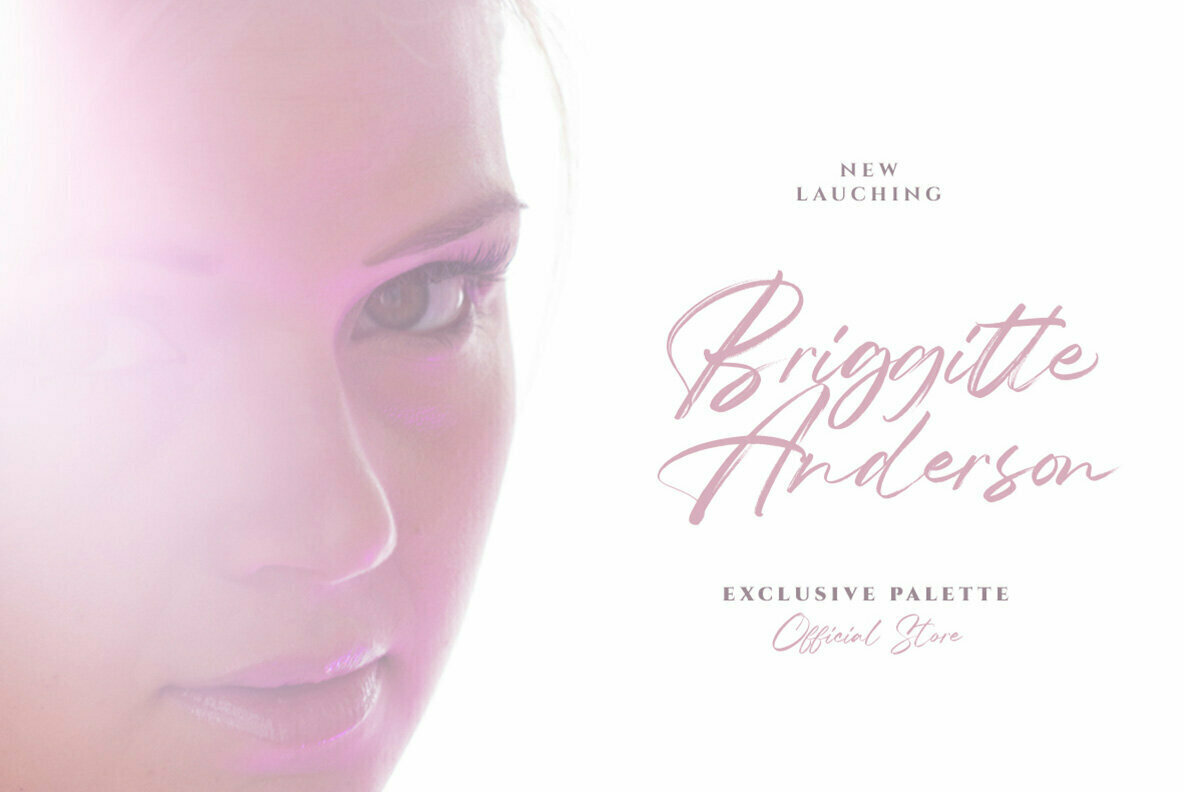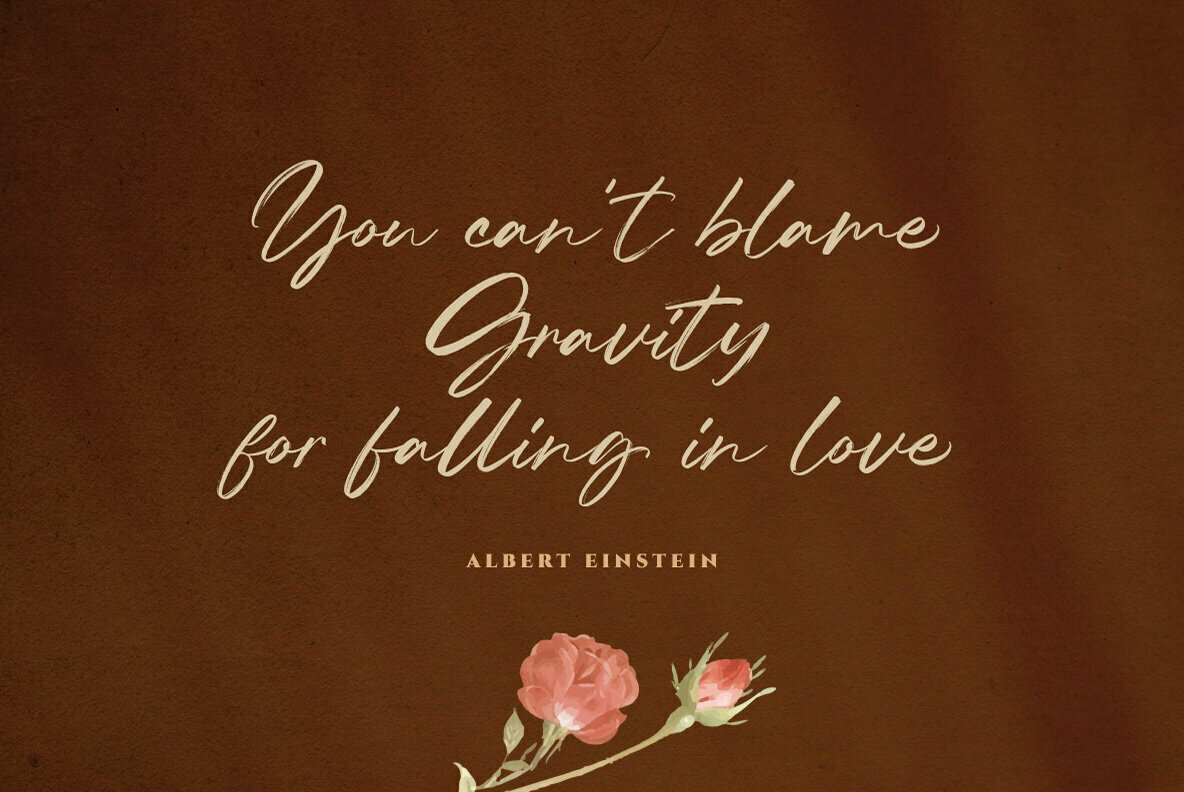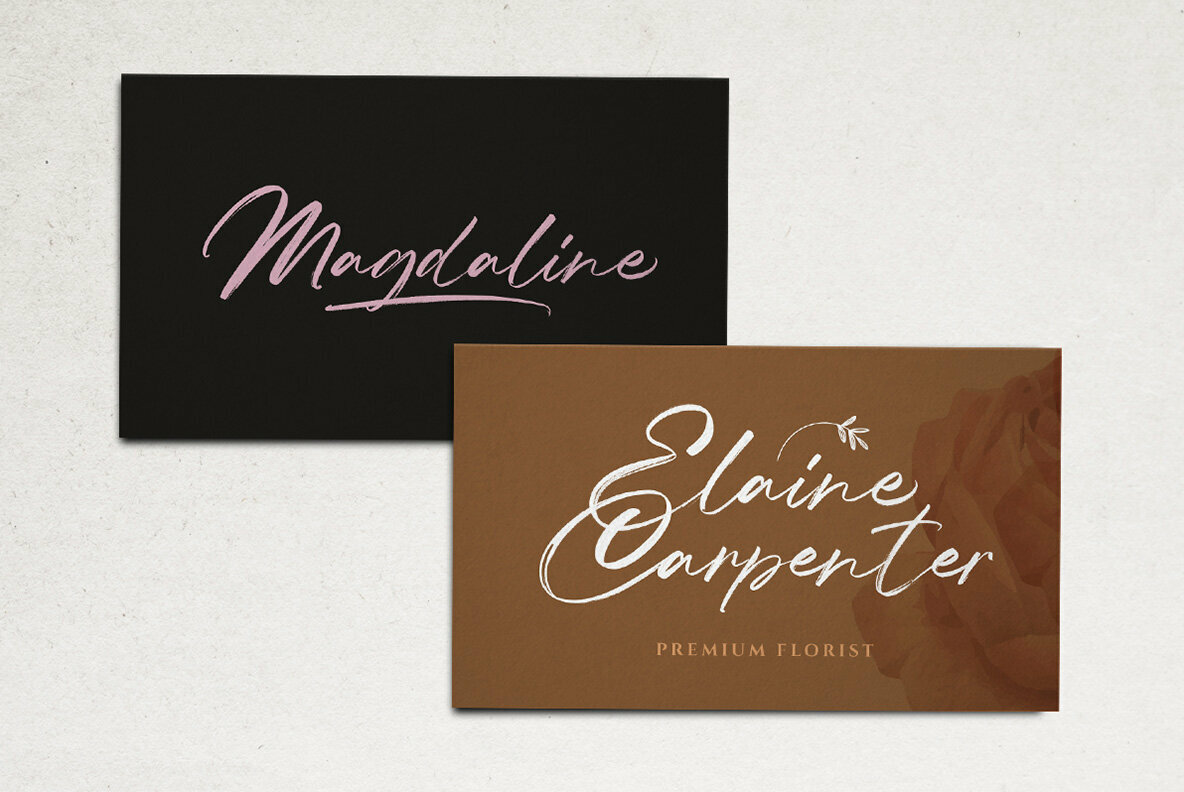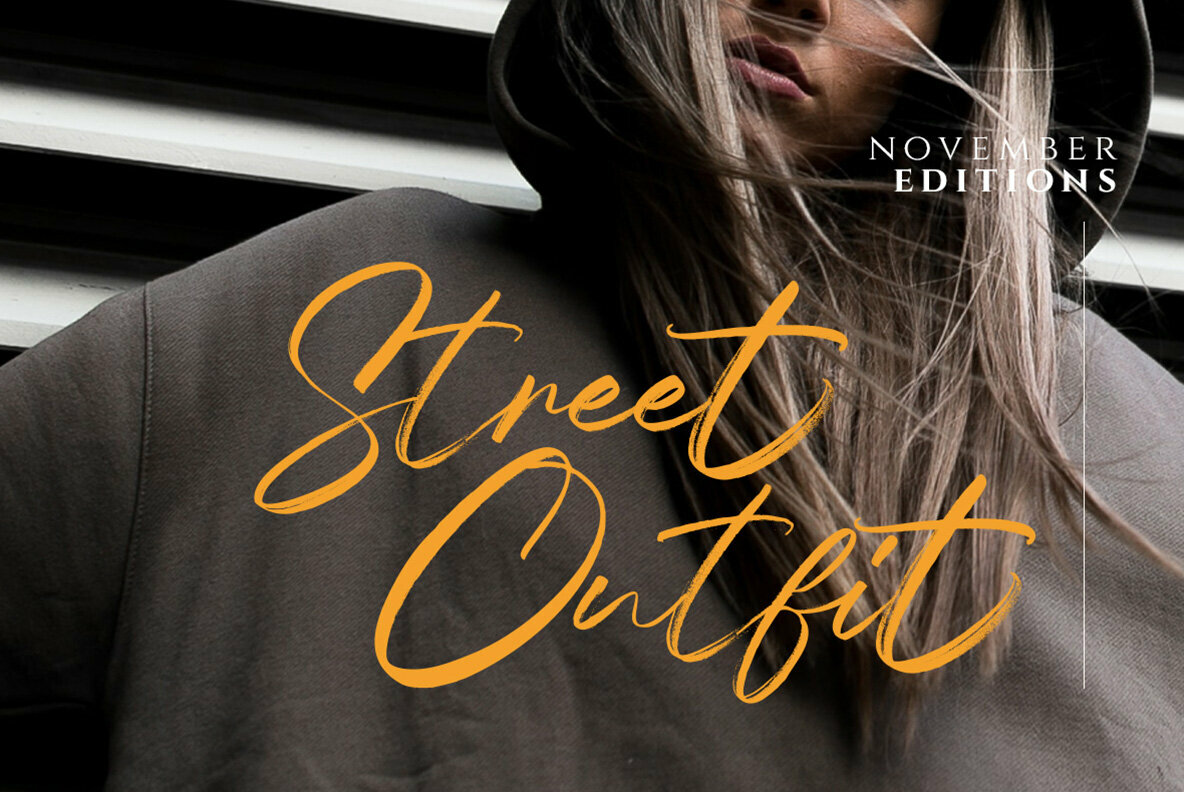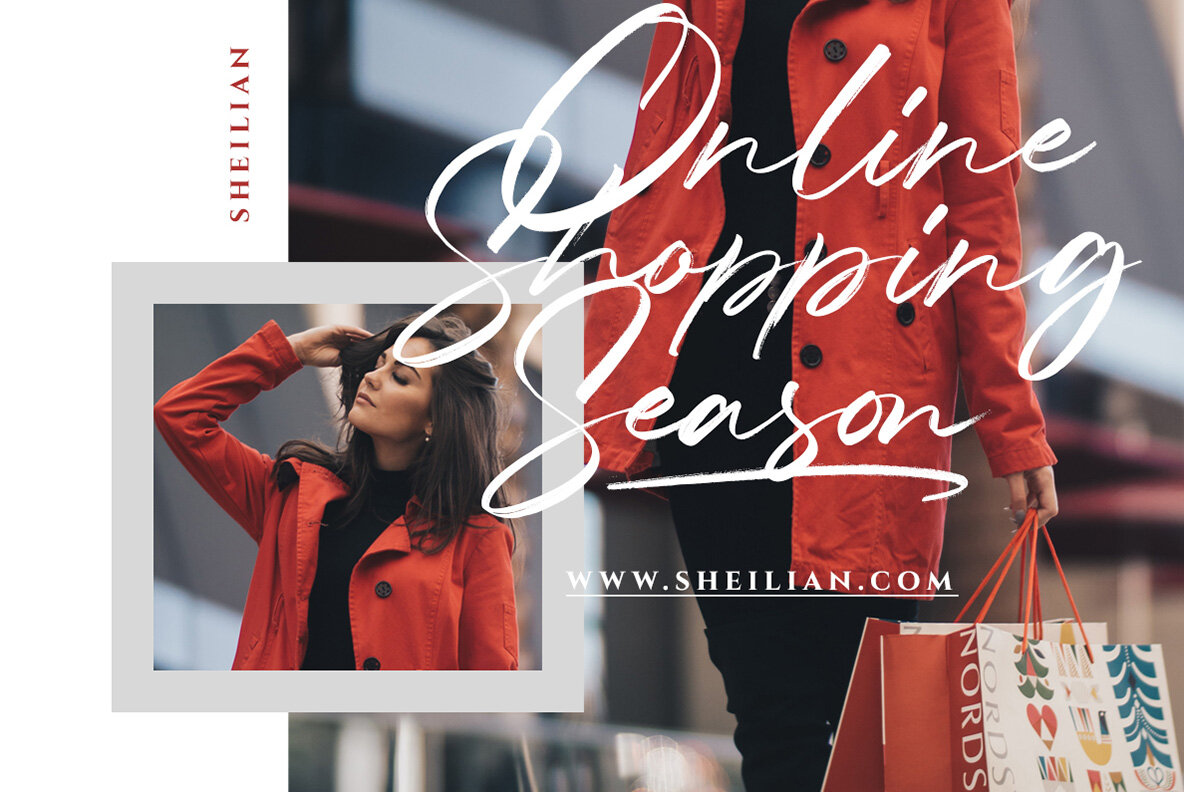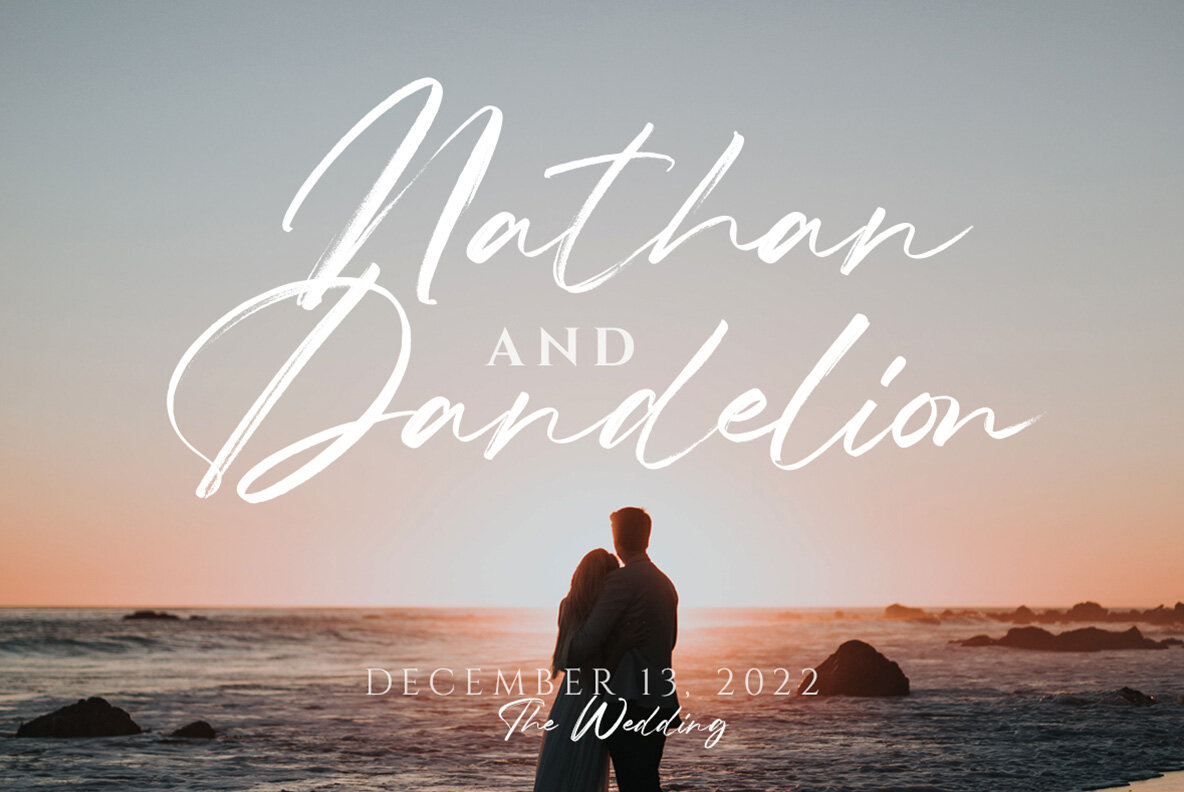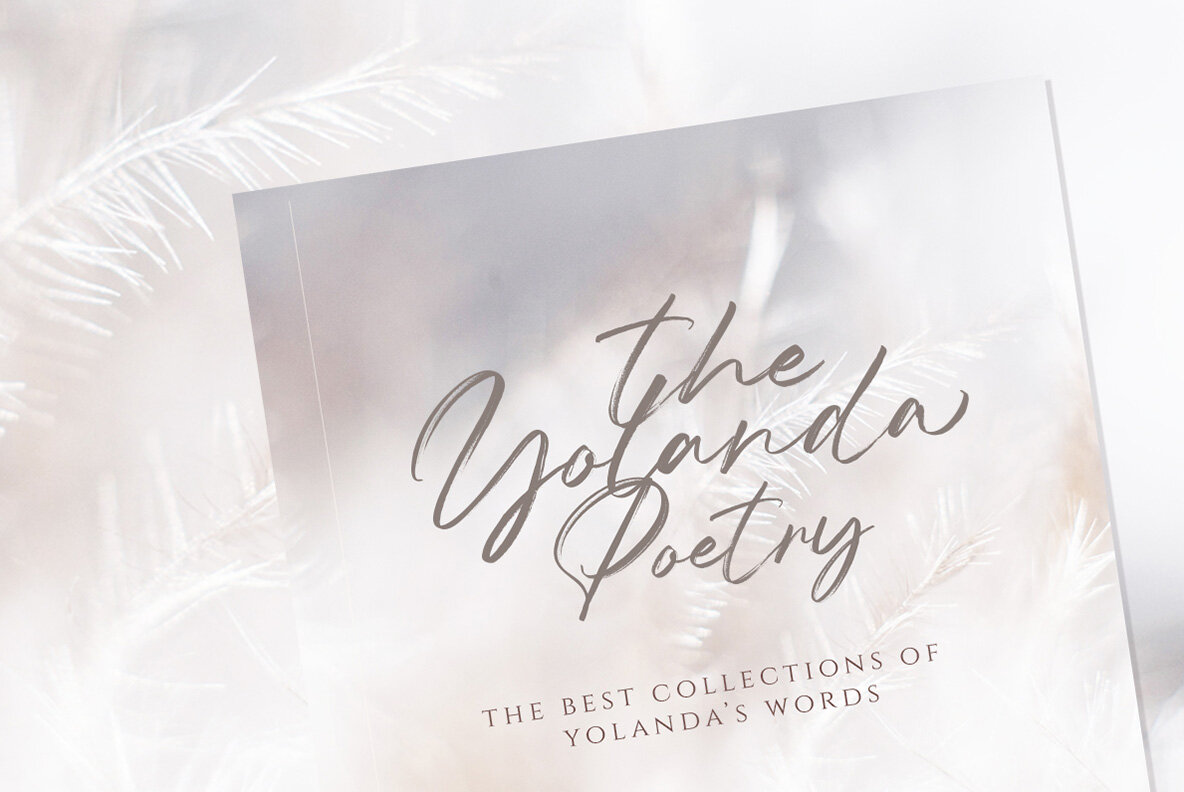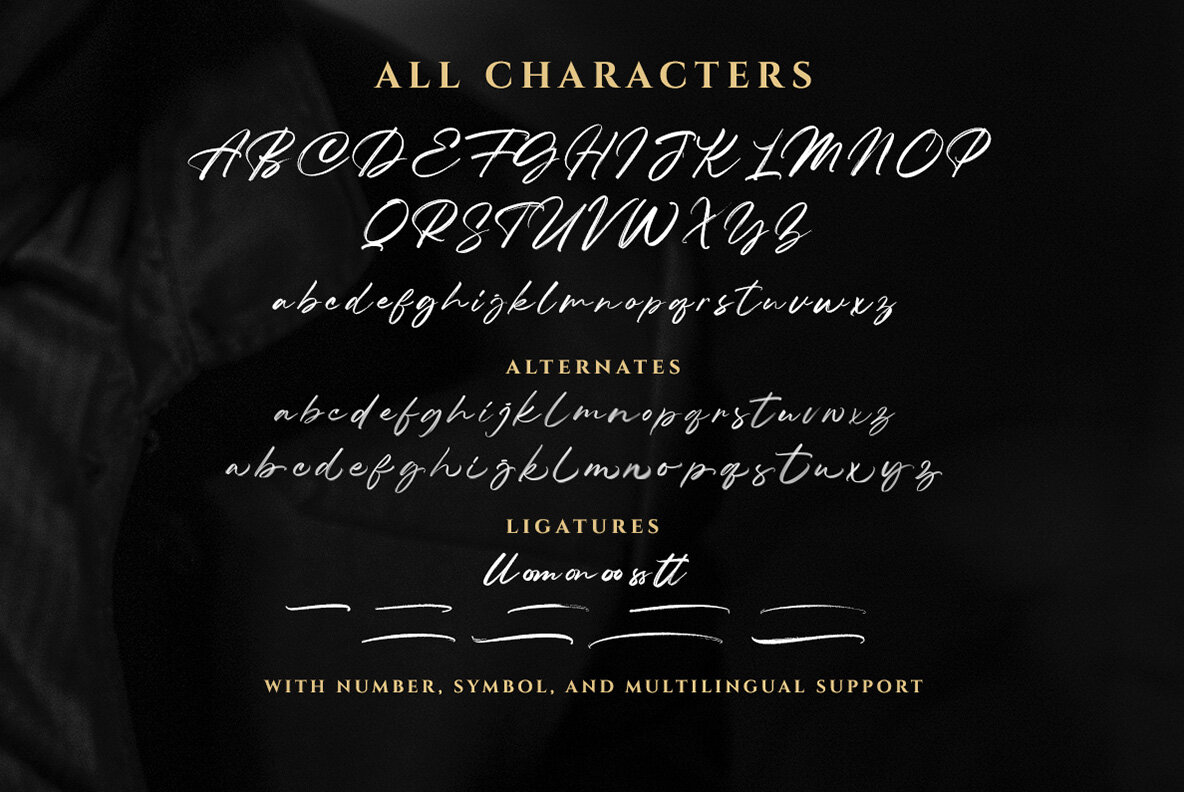
Compania Font
Compania Regular
Compania presents itself as a premium script font that exudes elegance and sophistication. Its authentic handwritten style ensures that every design exudes a personal touch. This font is ideal for a plethora of applications, including logos, formal invitations, labels, and advertising. Creative professionals will find it a suitable choice for projects that demand a touch of refinement, making it a perfect fit for magazines, books, greeting cards, and more. For optimal use, we recommend utilizing software with OpenType features and access to glyphs panels, such as Adobe applications and CorelDraw. This ensures that you can fully explore the numerous glyph variations offered by Compania.Compania: Luxury Signature Script